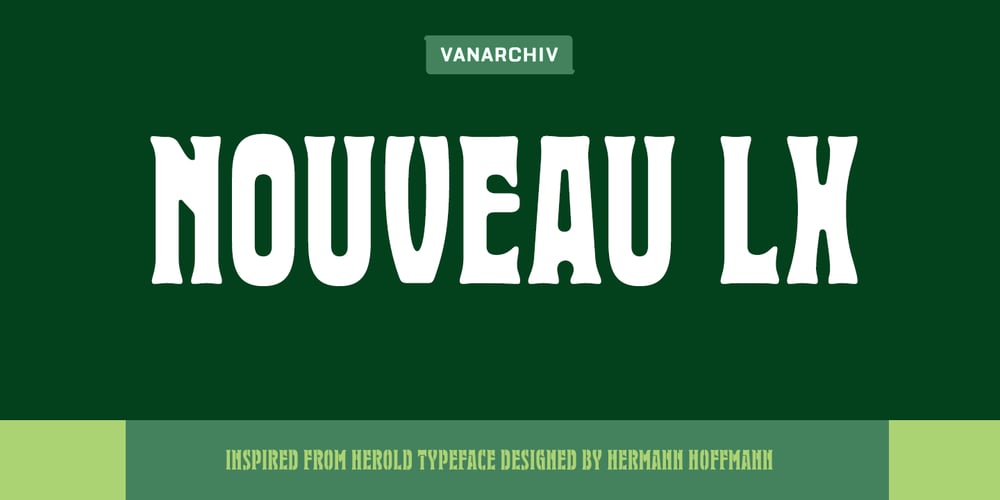
Nouveau LX
Nouveau LX font
Nouveau LX Font Family was designed by Ricardo Santos and published by Vanarchiv. Nouveau LX contains 1 styles and family package options. The original design came from Berthold Herold typeface, designed by Hermann Hoffmann during 1913 (Art Nouveau style) in Germany. This project started from flyer printed during 1947 with movable type, the specimen was scanned as a source to development some of the uppercase letterforms. However the most unusual and tricky element from this sample is the leg from the uppercase (R) which is different from the original Herold design, until now I didn’t found where this version originally came from. This font family only contain the bold weight, but there are also a stencil and expanded versions available.